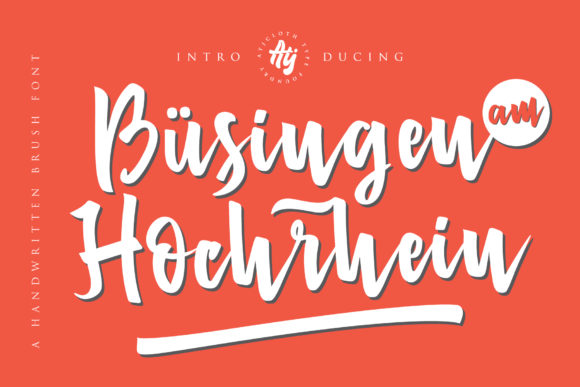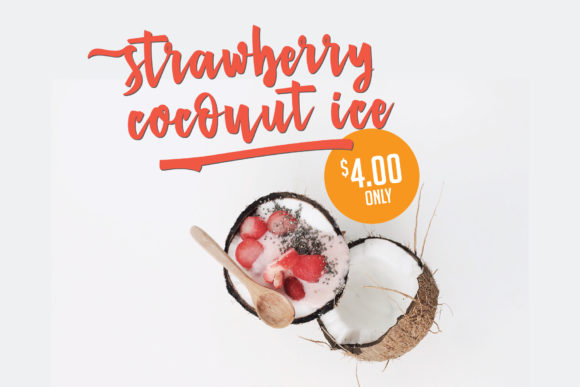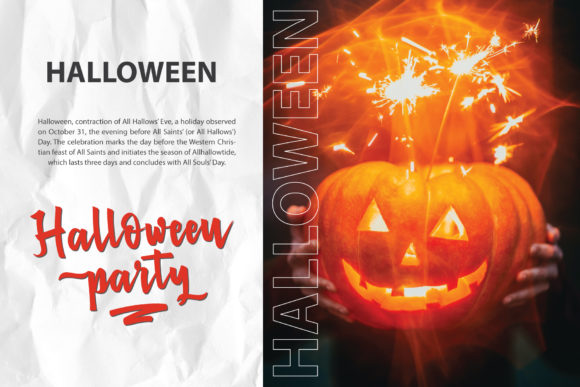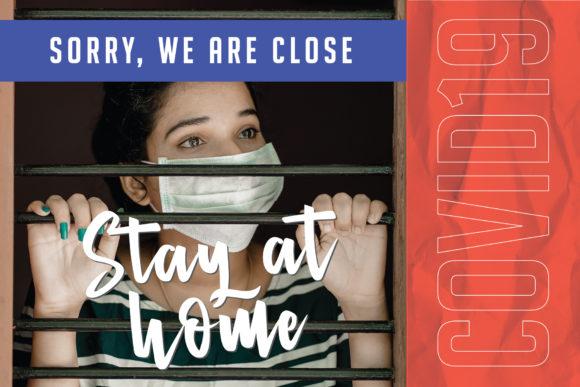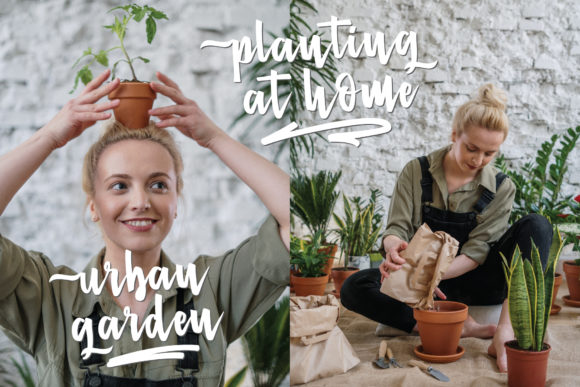
About Busingen Am Hochrhein Font
Busingen Am Hochrhein is a flowing and beautiful handwritten font. Its distinct and well rounded letters make this font a masterpiece. Fall in love with its incredibly versatile style and use it to create spectacular designs!